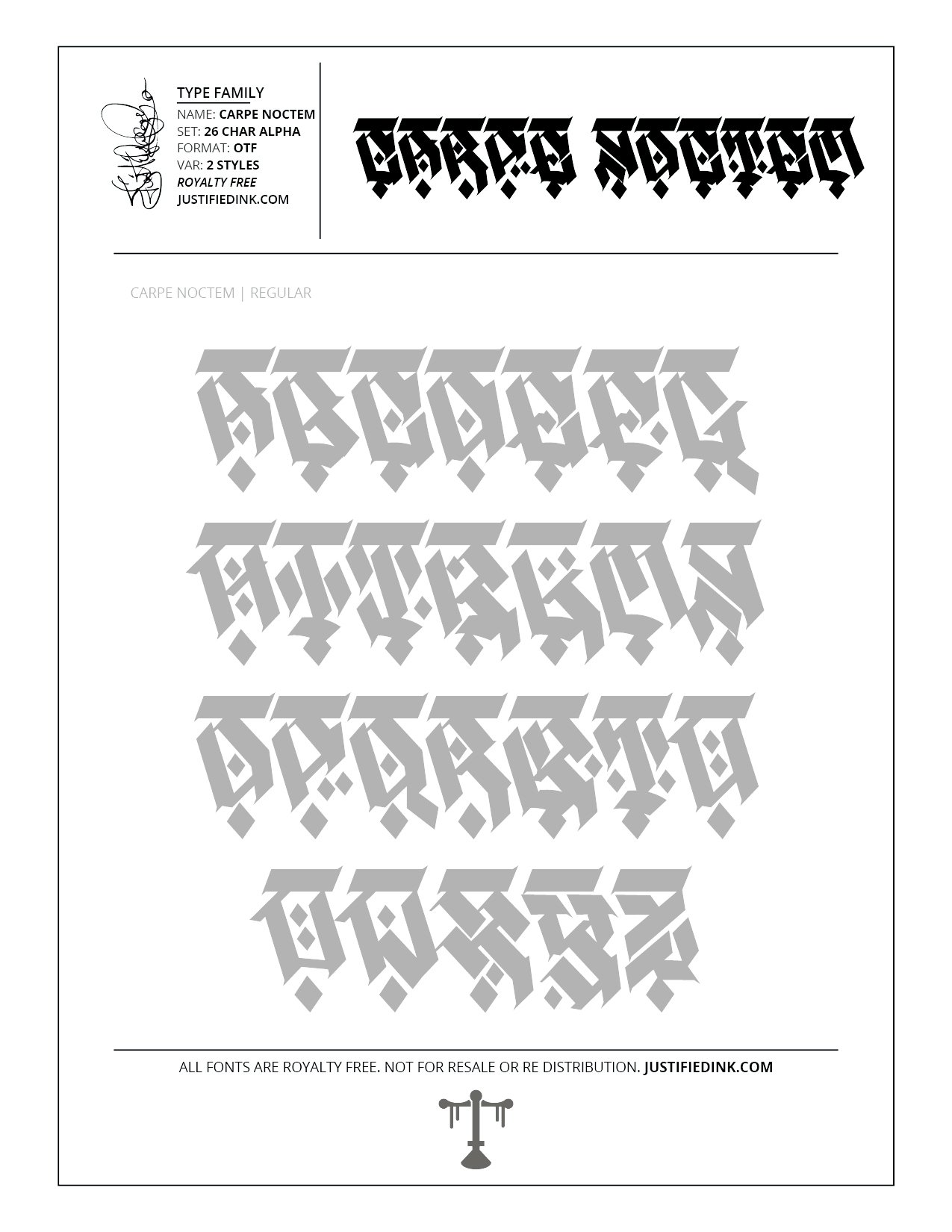
Carpe Noctem is a tribute to seizing each and every night. Using that time to gain whatever it is you seek. For some, nights are for rest, but for many its time spent in practice, learning, developing, and working. The overwhelming majority of this Blackletter II collection was created during the night and so "carpe noctem" became the perfect mantra to see this project through.
This font is part of the collection by Justified Ink, called Blackletter II. After 15+ years creating, I began to focus on building personal libraries of my work. The Blackletter II Collection was created through writing page after page, and countless hours over a 2 year span of daily practice. Each font from this collection has been hand drawn, manually vectored, and custom set as a type-able font. It comes in a full set of 26 char alpha. Each font family has variations in styles and/or non-alpha chars.